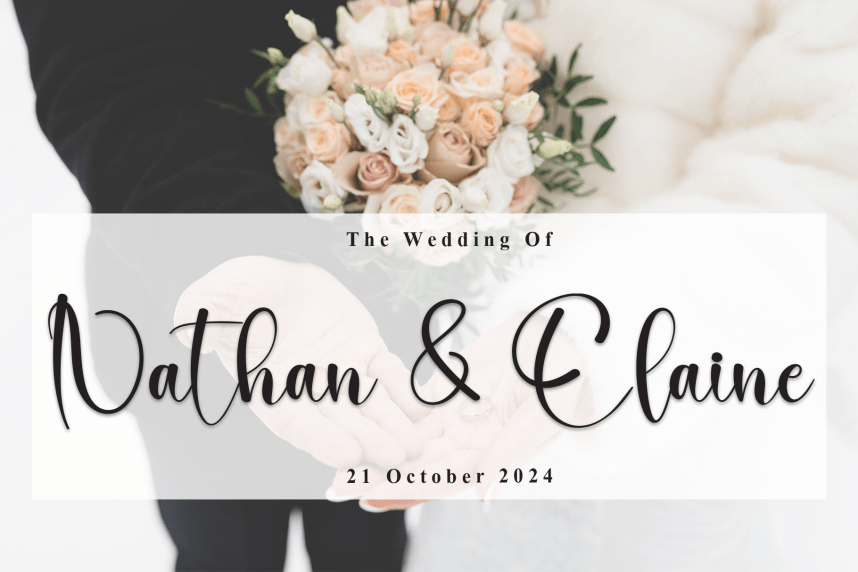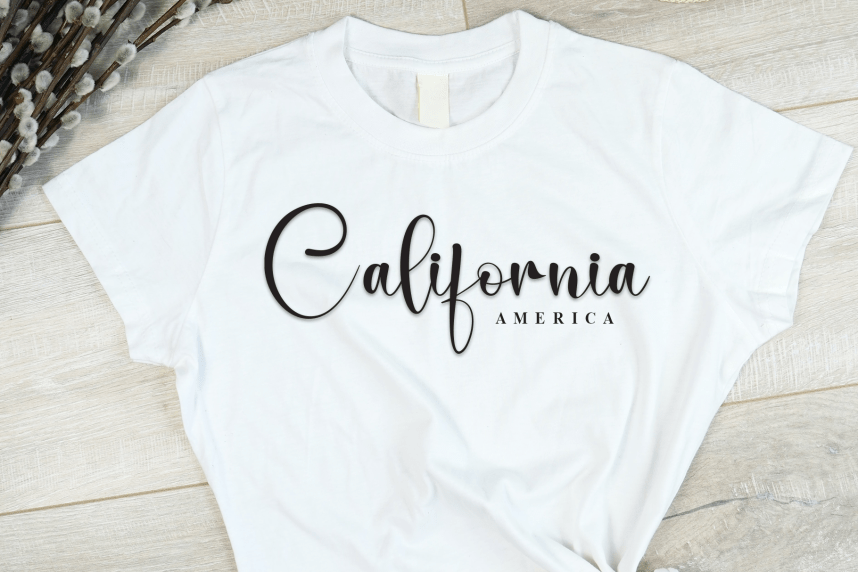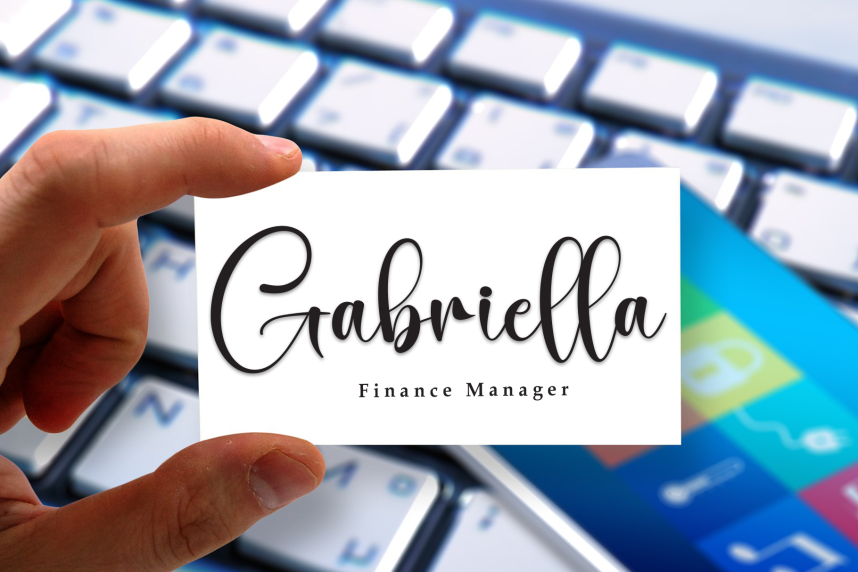
Magical Christmas – Handwritten Script Font
Magical Christmas – Handwritten Script Font, special creative products for you, our products will give you an extraordinary experience. the latest style letters are perfect for wall displays, wedding invitations, social media post logos, advertisements, product packaging, product designs, labels, photography, watermarks, invitations, stationery, and any project that requires taste handwriting.